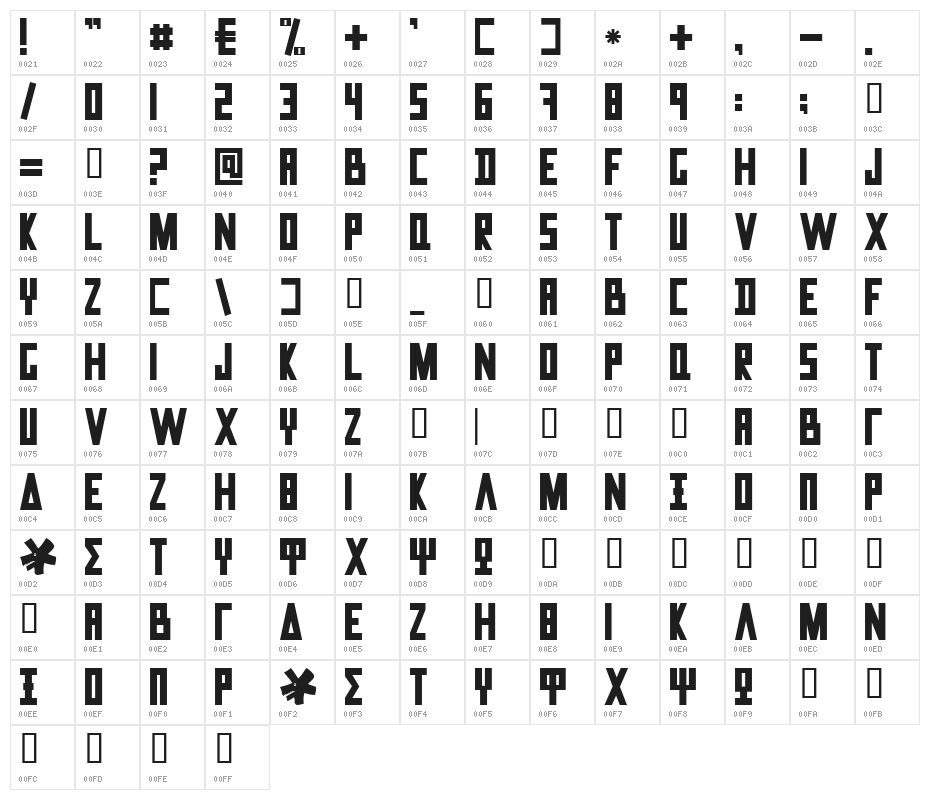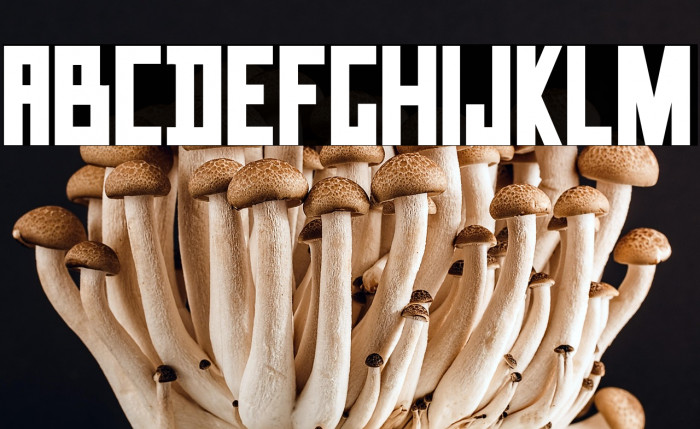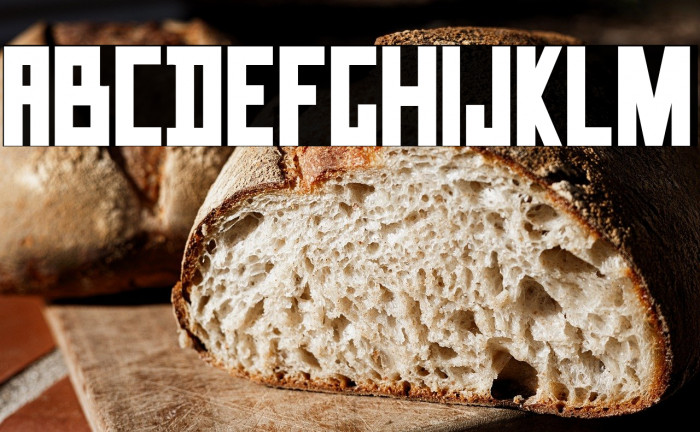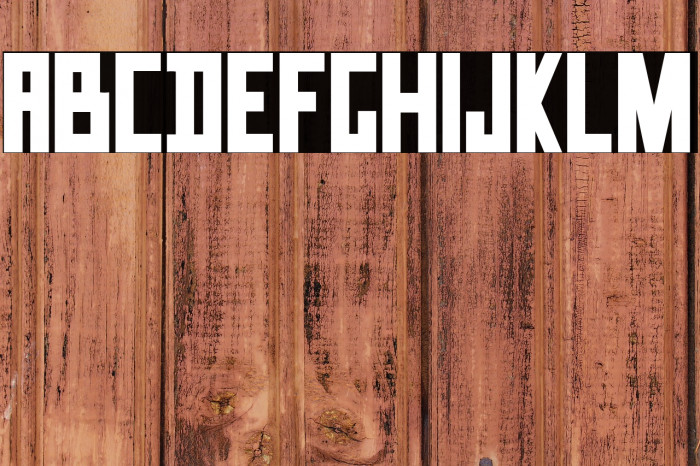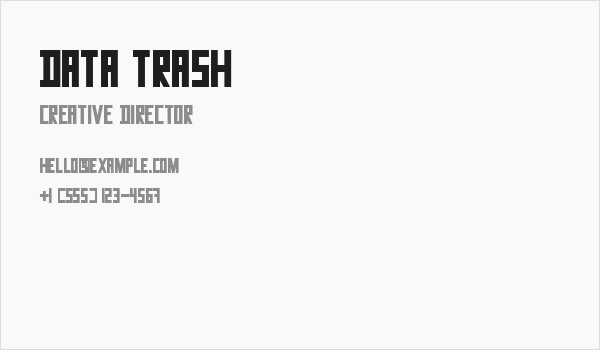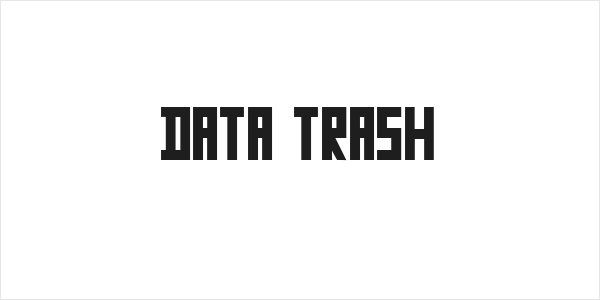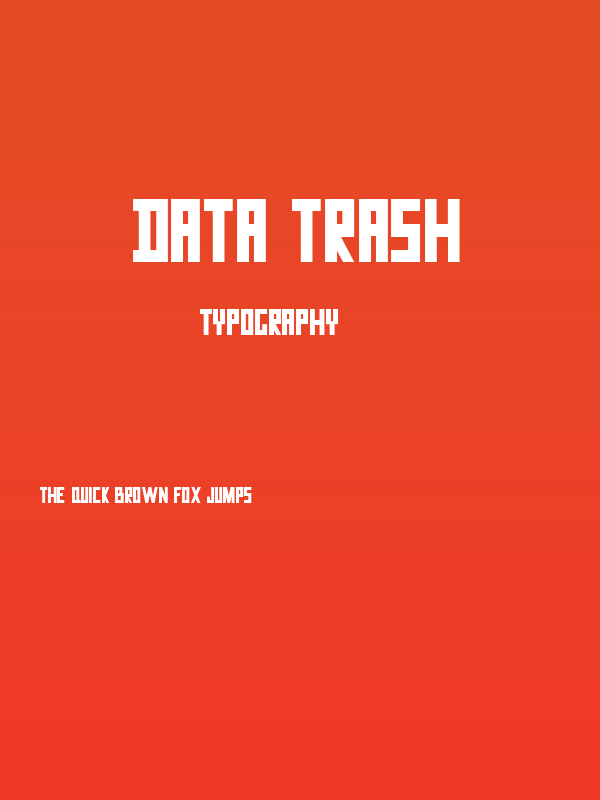
Data Trash Font
Data Trash Description
This font features a bold, geometric design with a strong presence. The characters are blocky and angular, giving a futuristic and digital feel. The uppercase and lowercase letters maintain a consistent height, creating a uniform appearance. The numbers and special characters follow the same bold and angular style, ensuring cohesion across all elements. The font's design is reminiscent of digital displays or retro video games, making it ideal for projects that require a modern yet nostalgic touch.
| Proposed Projects | Ideal for video game titles, tech-themed posters, digital art projects, and branding for technology companies. |